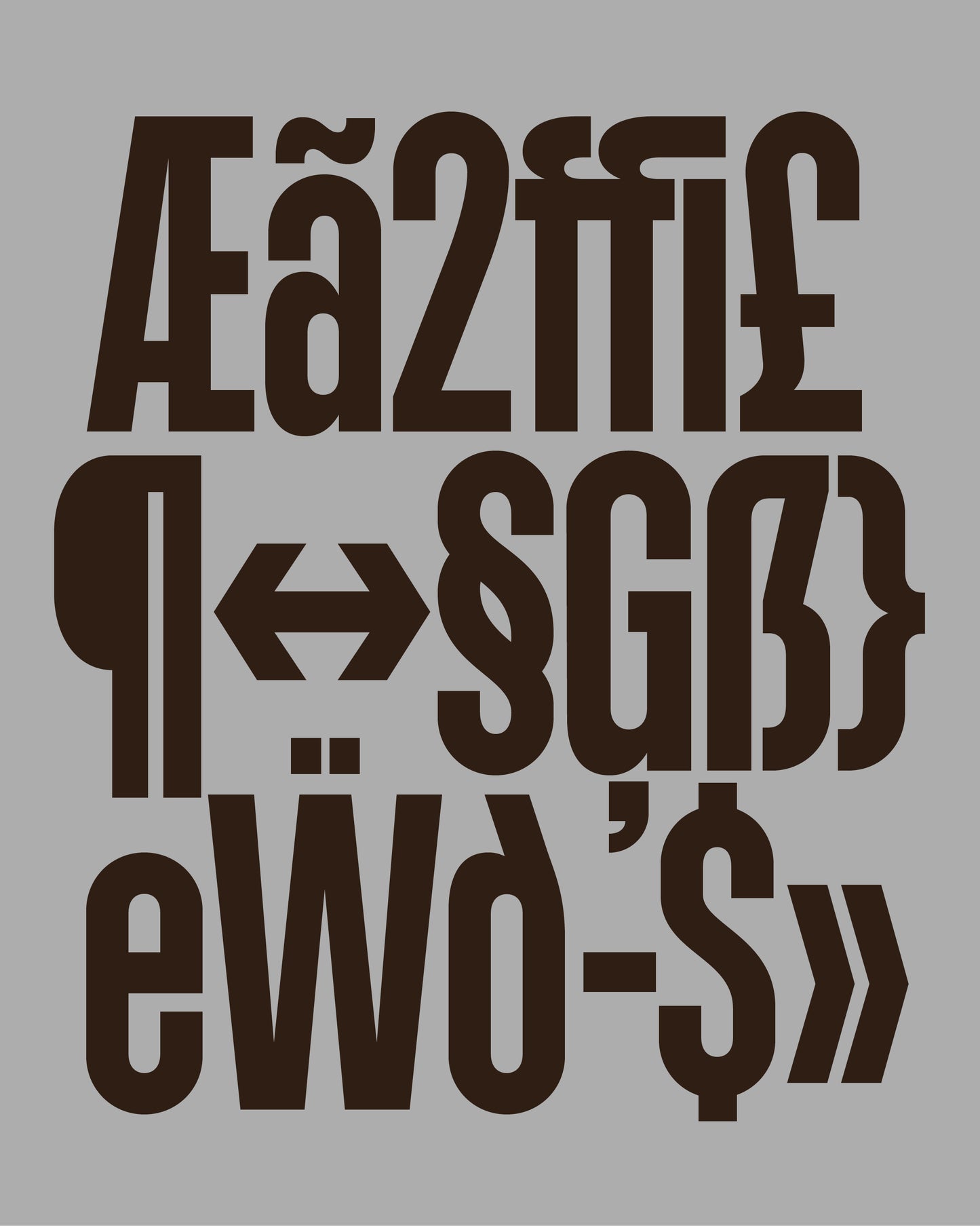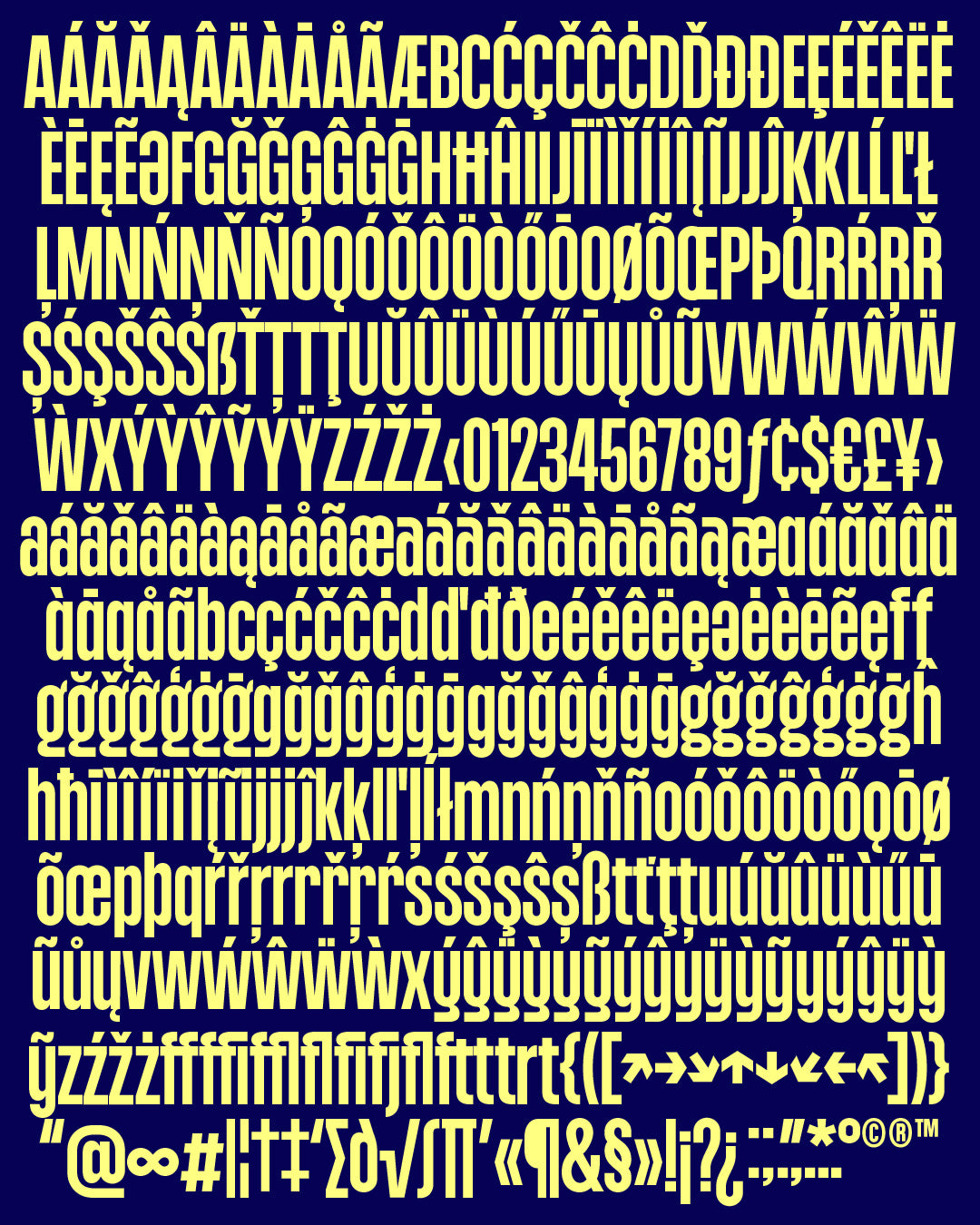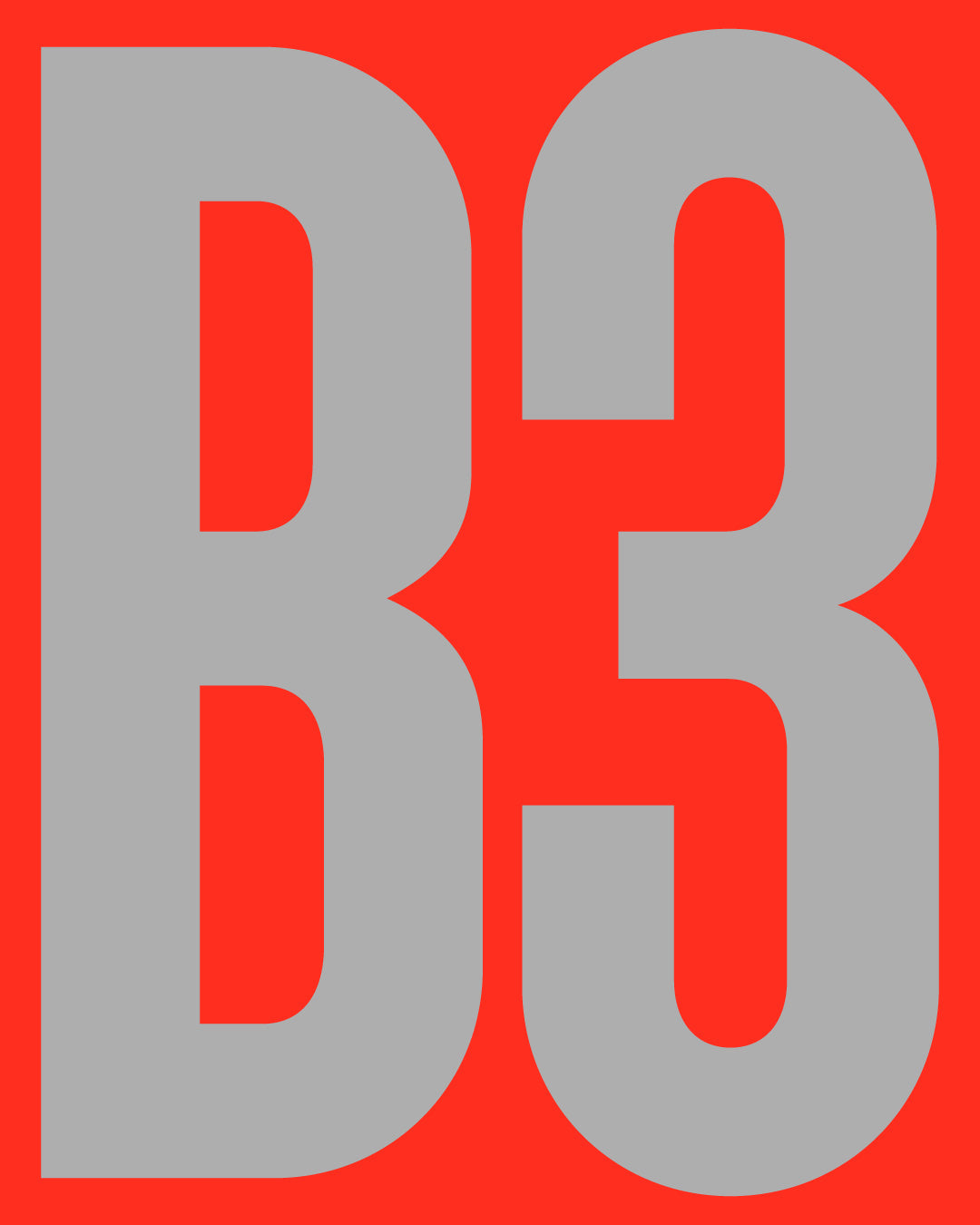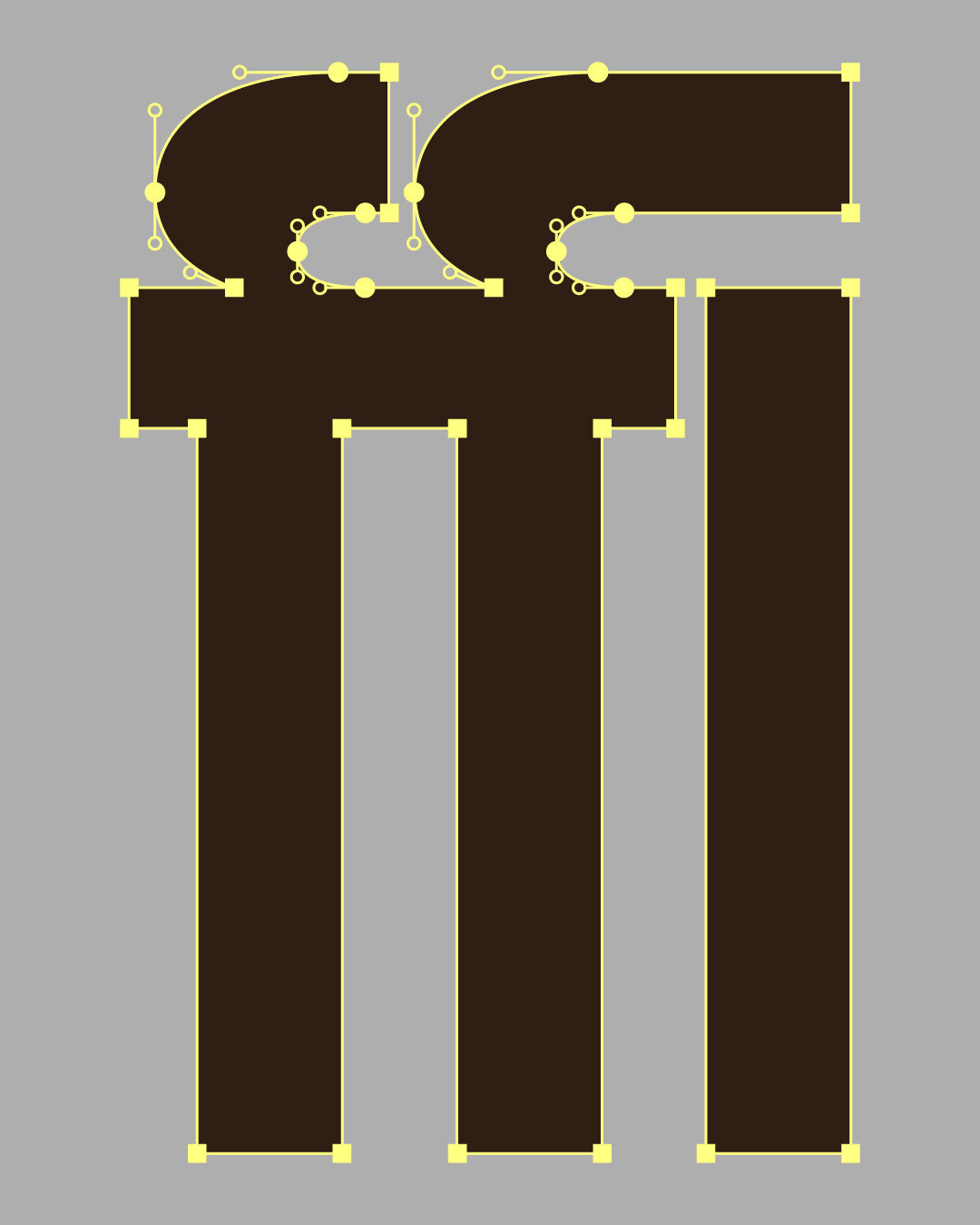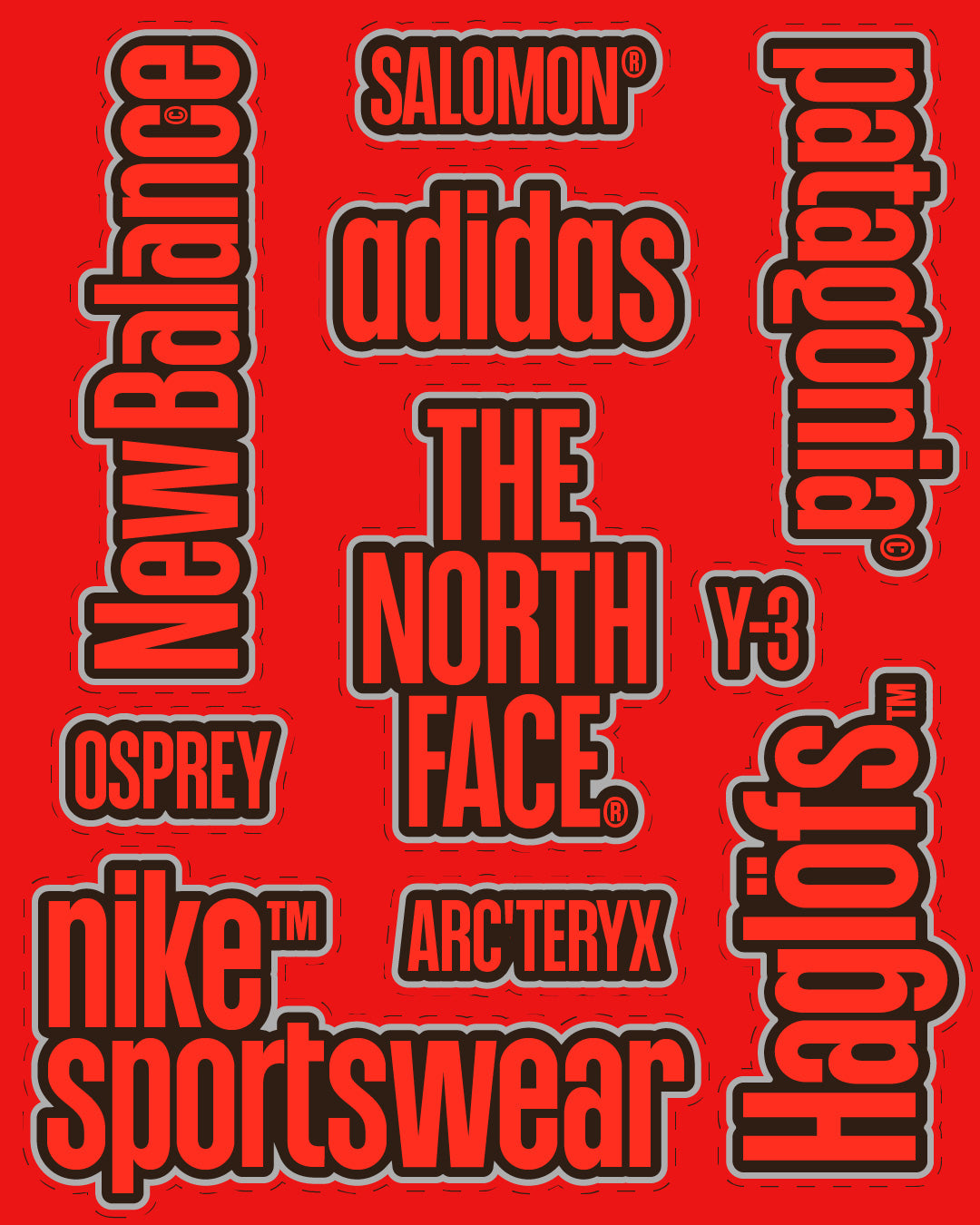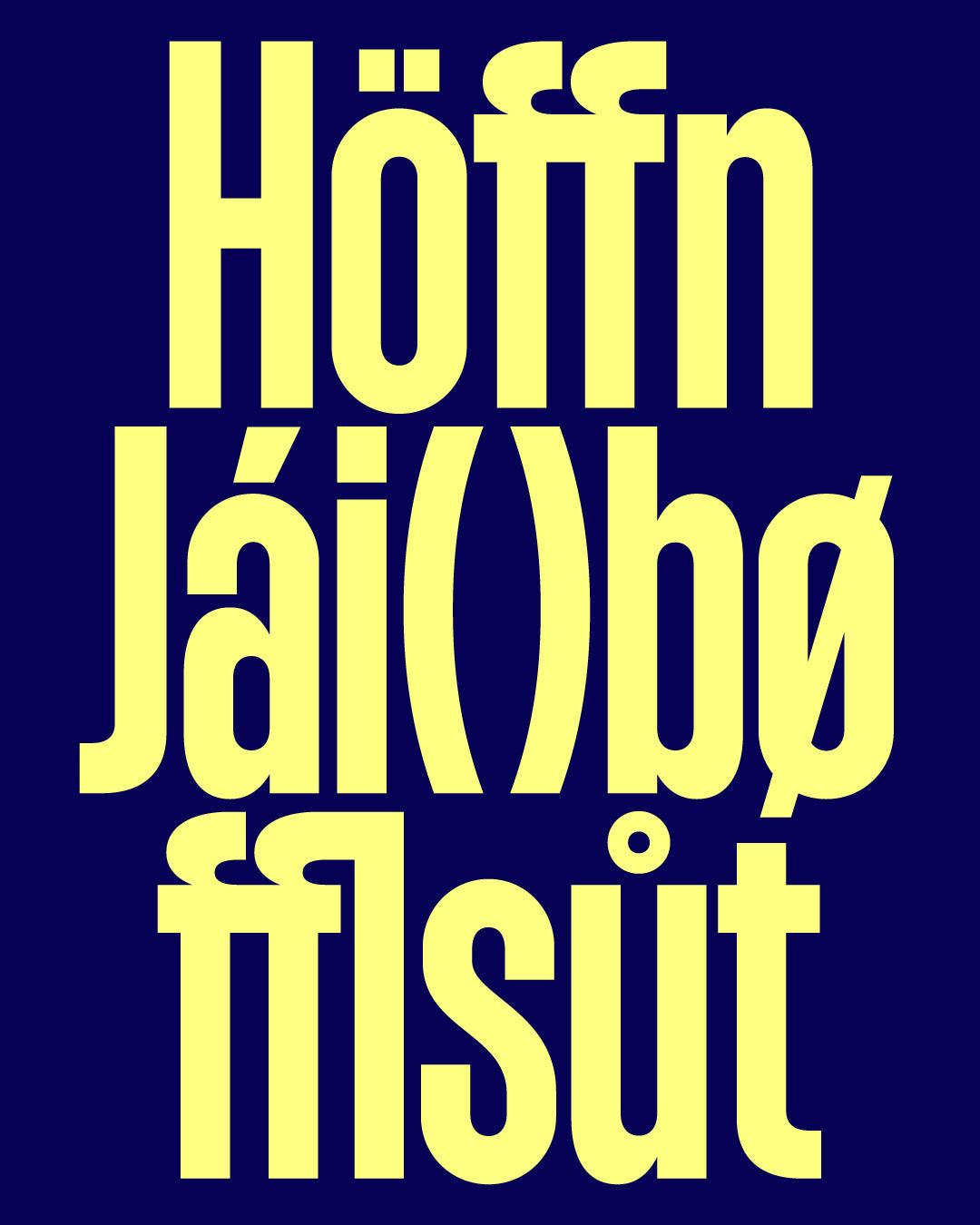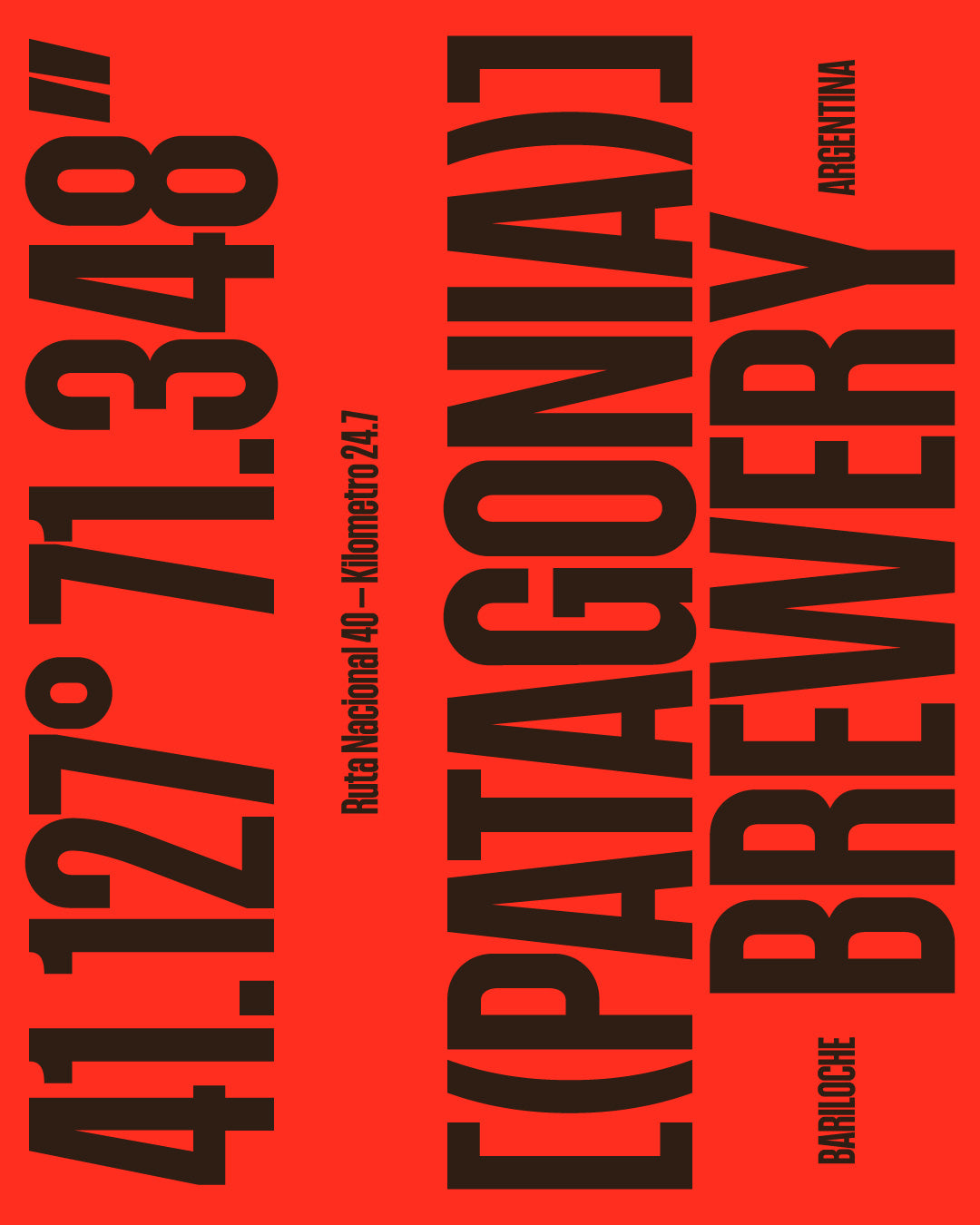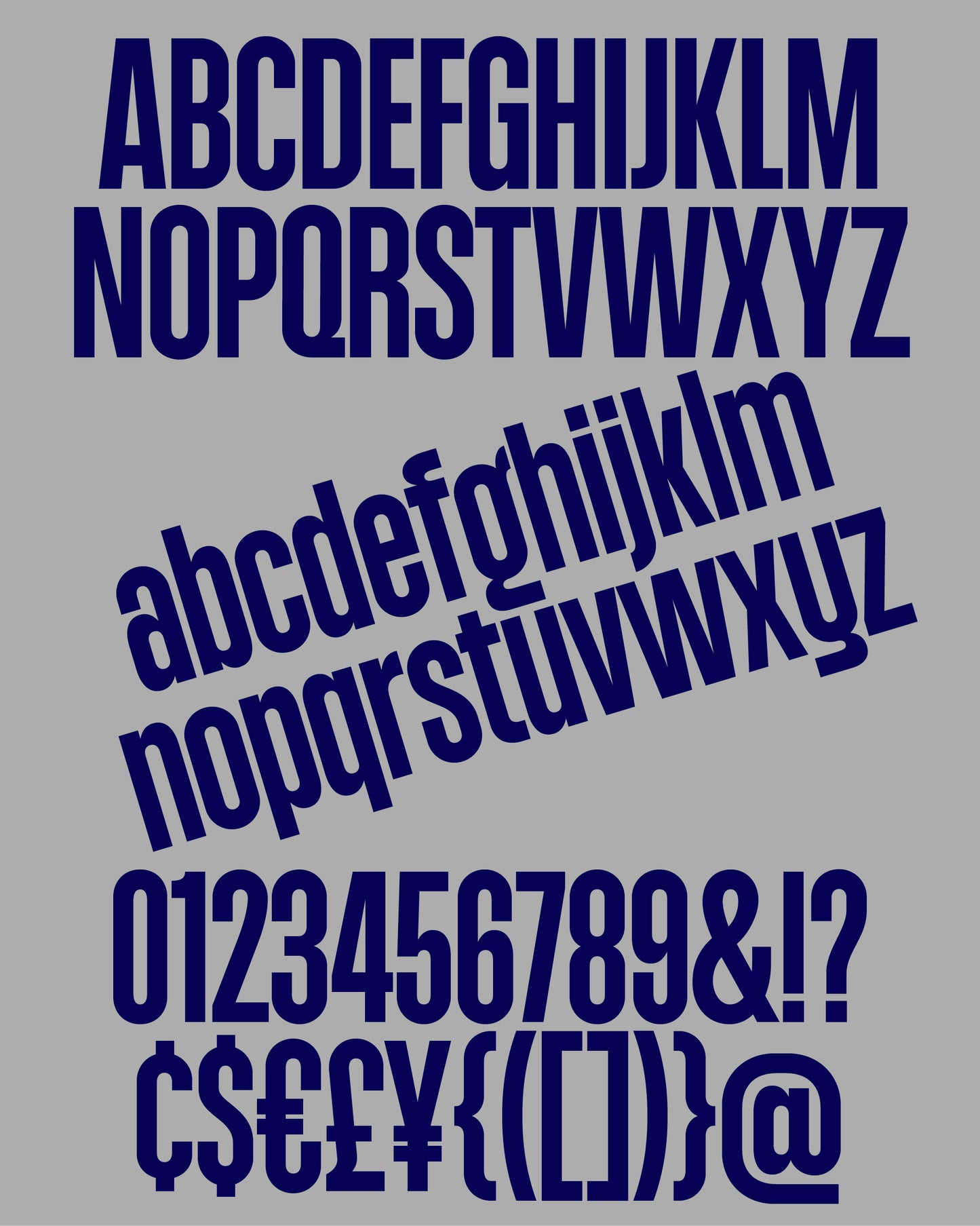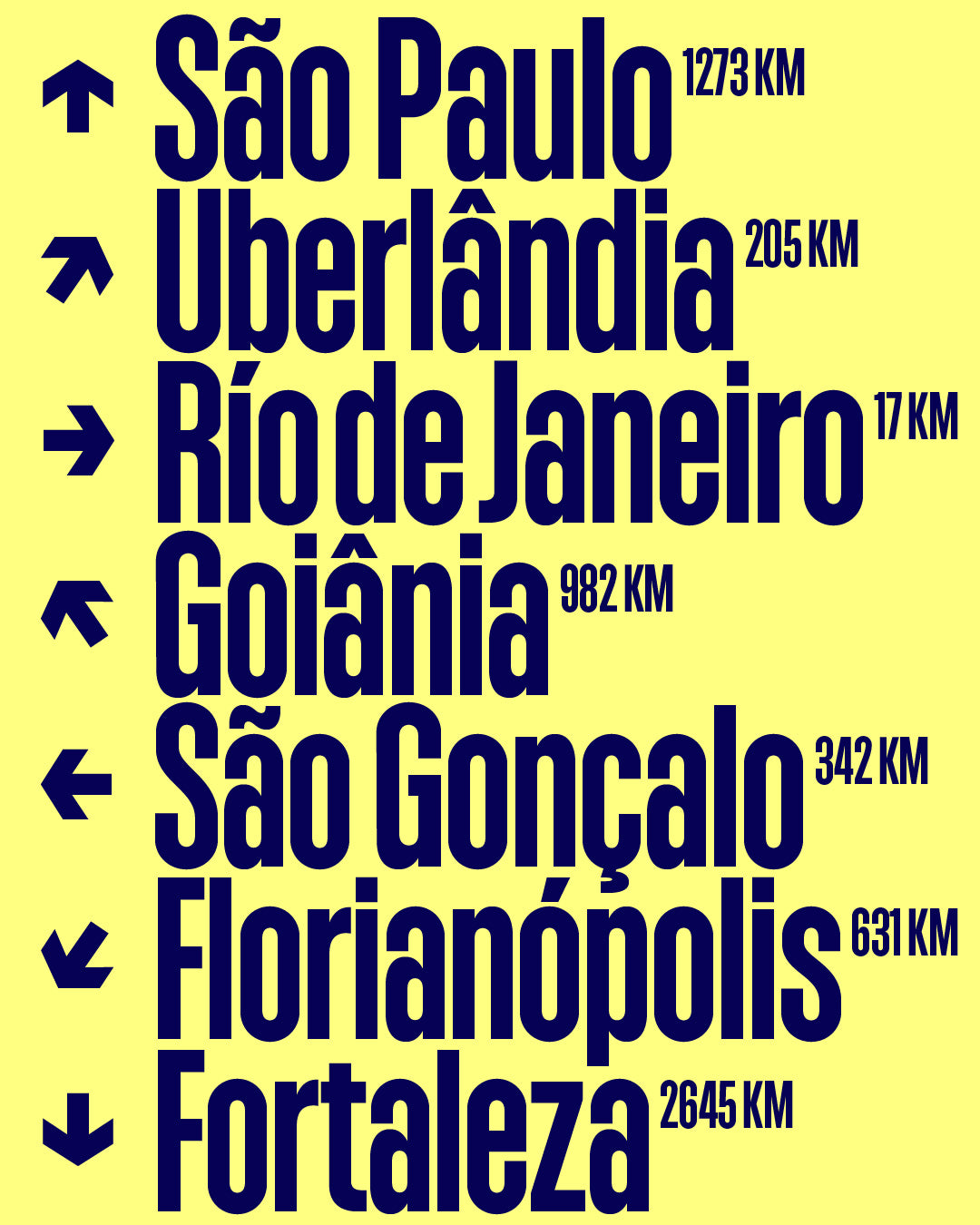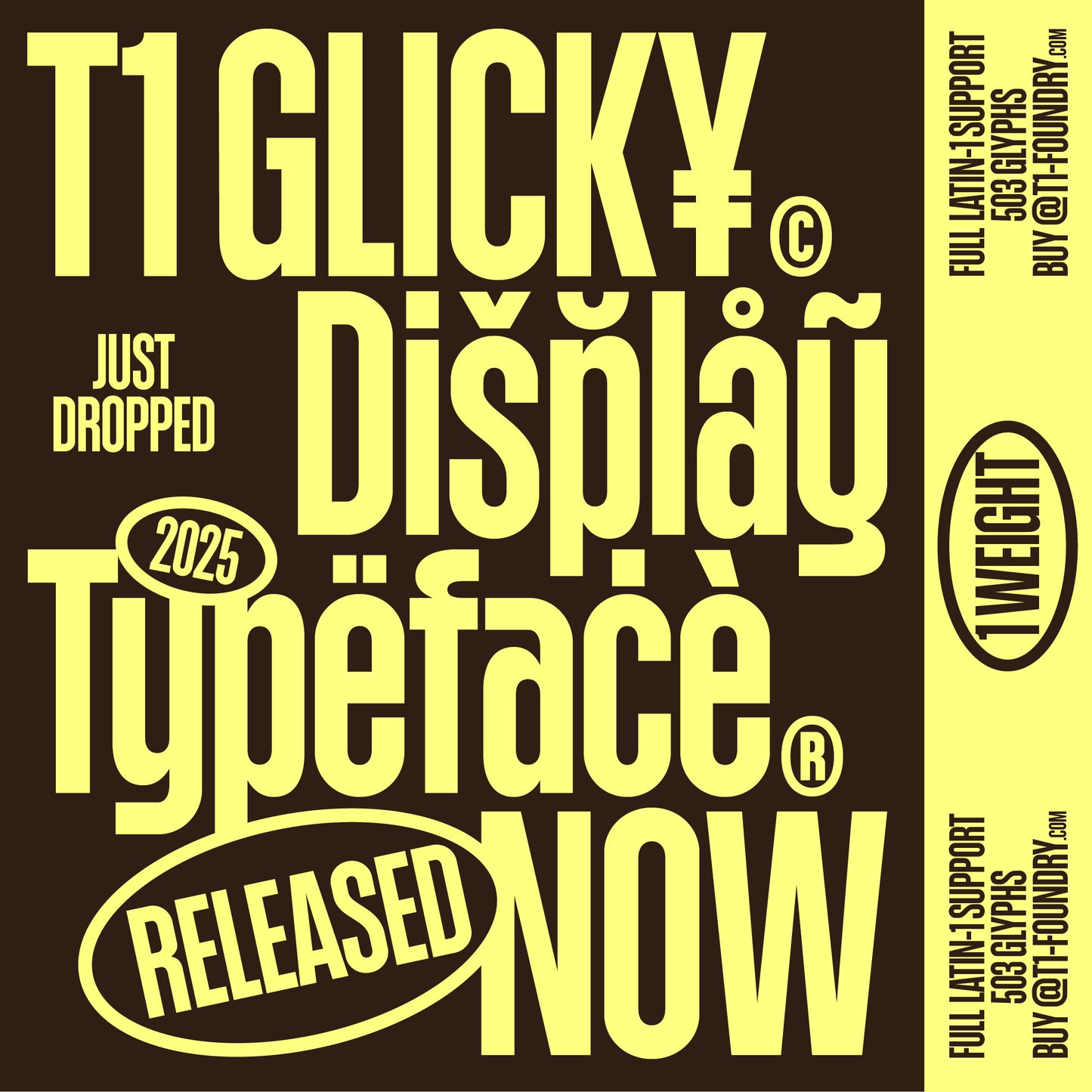
T1 Glicky
T1 Glicky is a lively sans display typeface designed to make a strong visual mark in a compact space.
Defined by its condensed letterforms and short ascenders and descenders, this typeface is built for tight line spacing and compact compositions. Designed primarily for logotypes and headlines, it offers three stylistic sets that reimagine key characters such as a, g, and y. Each variation shifts the tone and rhythm of the design, allowing you to steer the typeface toward different aesthetic moods.
In use, it proves highly adaptable. Uppercase settings deliver a sober yet striking presence, while lowercase compositions reveal its distinctive quirks and personality. Depending on the chosen stylistic set, it can lean from playful and expressive to technological and contemporary.
Additional features include a set of arrows, standard ligatures, and discretionary ligatures, along with alternate parentheses and slashes designed to align with the letter height—ensuring clean, uninterrupted spacing, even in all-caps settings.
Currently available in a single weight, it has been carefully calibrated to achieve the right balance of clarity, decisiveness, and character for short phrases and logotypes. This release also lays the foundation for potential expansion into a broader type family in the future—so stay tuned!